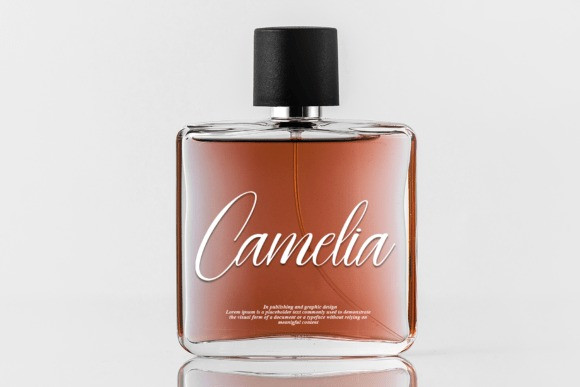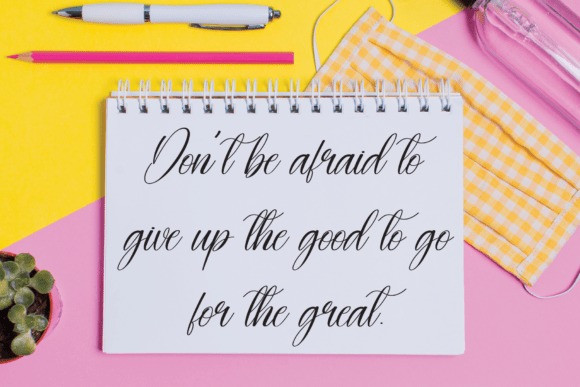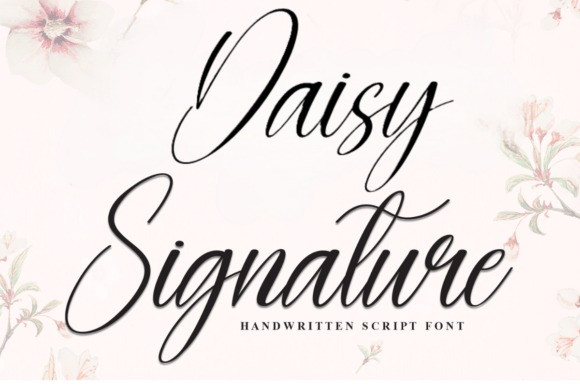
Daisy Signature Font
Daisy Signature Font is a refined handwritten script font that exudes elegance and sophistication. With its graceful curves and natural flow, this font captures the beauty of authentic penmanship, making it ideal for wedding invitations, personal branding, luxury packaging, and stylish social media posts. It’s the perfect choice to add a personal yet polished touch to any project.